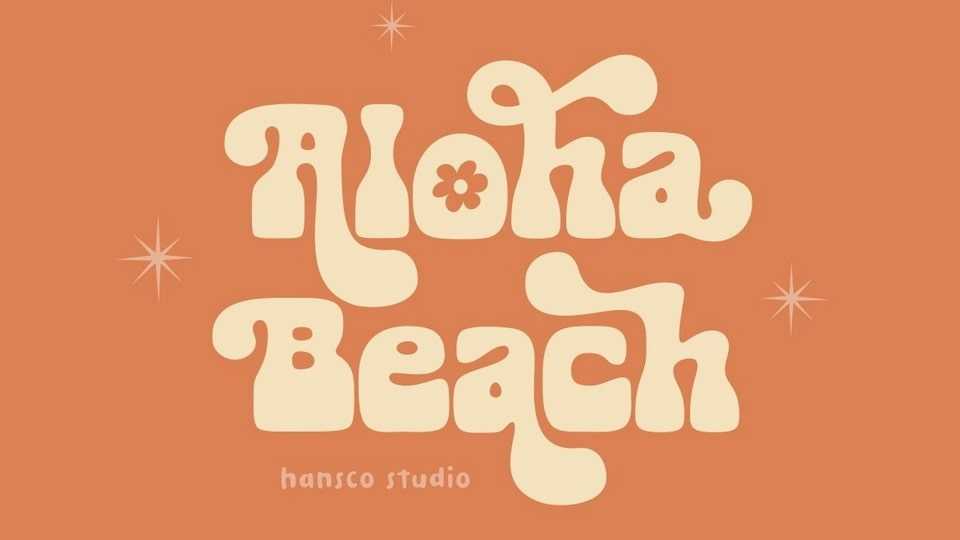
Download Aloha Beach font, a bold and groovy display typeface with rounded characters on each side. Use this playful font to add that special retro vintage touch to any design idea.